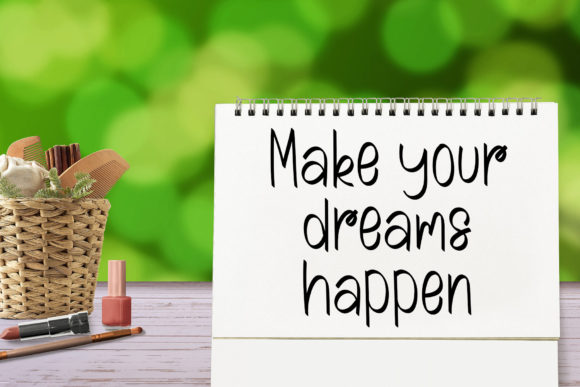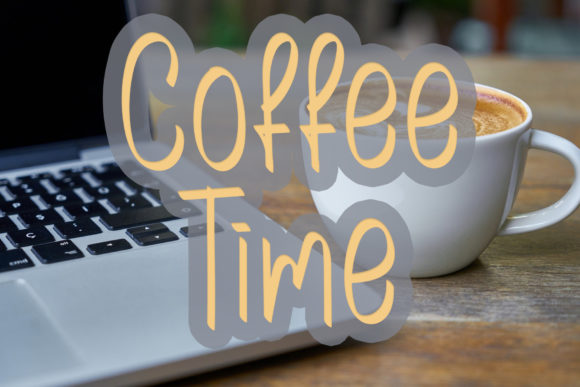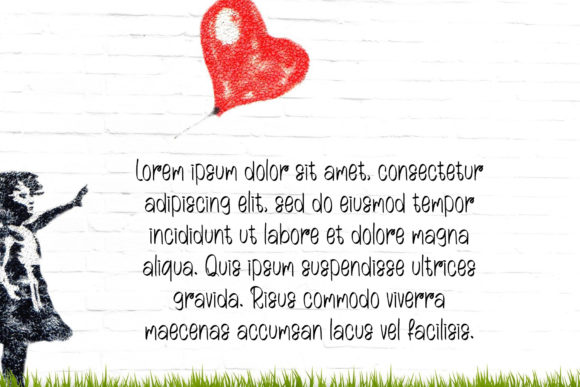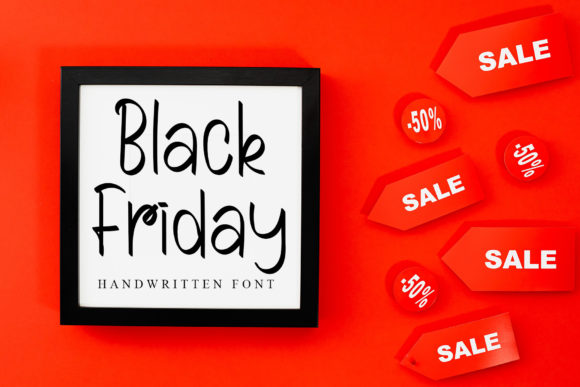
Adding a Touch of Elegance to Your Designs
As a designer, there’s nothing quite like that moment of creative flow when the perfect font comes together with your vision. You’ve poured over countless options, tested different styles, and finally, it clicks. The words start to take shape, and your design begins to radiate a unique personality.
One such font that can elevate your designs to new heights is the Designer Clothes Font. This elegant, hand-made font is perfect for adding a touch of sophistication to wedding invitations, greeting cards, billboards, logos, business cards, and any other design that requires a handwritten touch. With its varied baseline, the Designer Clothes Font brings a natural, organic feel that’s hard to replicate with digital fonts.
Designer Clothes Font Key Features
- Font Family: A curated collection of 12 stylish font families, each with its unique character and flair.
- Unique Characteristics: Includes distressed, vintage, and modern styles, making it perfect for fashion, lifestyle, and luxury brands.
Designer Clothes Font Review
Overall, I’m impressed with the “Designer Clothes Font” – it’s a solid choice for fashion-related projects. Here’s what works well: ✨
- High-end aesthetic: The font has a luxurious feel to it, perfect for high-end fashion brands or designer clothing labels.
- Professional look: It’s clean, modern, and sophisticated, making it suitable for a wide range of fashion-related applications.
- Good legibility: The font is easy to read, even at smaller sizes, which is essential for clothing labels or other small-scale applications.
- Limited expressiveness: The font is quite straightforward and lacks the flair of more creative fonts, which might make it less appealing for some designers.
- Not ideal for bold statements: While the font is great for conveying a sense of luxury, it’s not the best choice for making bold statements or drawing attention to specific elements.
Overall, I’d give “Designer Clothes Font” 4 out of 5 stars. It’s a reliable, professional choice for fashion-related projects, but might not be the best fit for designers looking for something more unique or attention-grabbing.
The Designer Clothes Font is perfect for:
1. Fashion and clothing labels.
2. Retail and e-commerce websites.
3. Fashion and beauty advertising.
4. Branding and logo design.